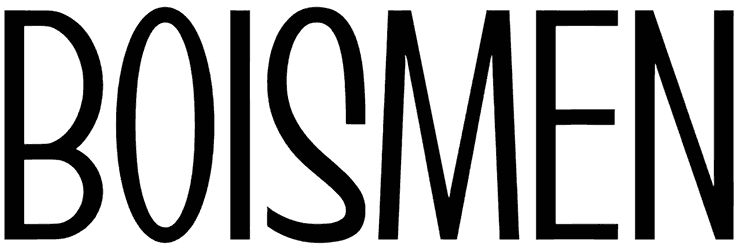
A great choice when it comes to projects that require a handwritten aesthetic is the Boismen font. As a result of its gorgeous design, it applies to a variety of branding situations, from product packaging and packaging designs to social media posts and advertising. With its elegant design and minimalistic style, this sans serif and hand-letter font is unique and well designed.